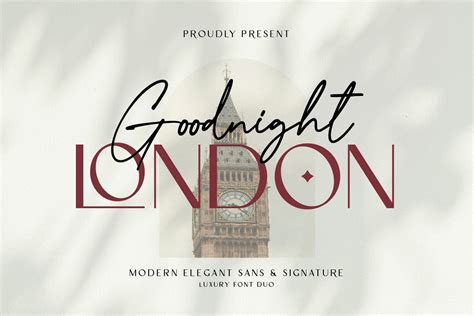
Alright, folks! Let’s dive into something cool: finding and getting your hands on the “Goodnight London” script , plus some awesome free fonts . Whether you’re a budding filmmaker, a graphic designer looking for that perfect touch, or just a curious creative type, this is your treasure map. We’ll navigate the ins and outs of where to find the script, what to expect, and how to snag those amazing fonts without spending a dime. So, grab your virtual pen and paper – it’s time to get inspired! This guide will provide information regarding the free download of the “Goodnight London” script and related fonts, focusing on accessibility, legality, and creative possibilities. We’ll also explore the script’s potential and how it can be used for inspiration or actual projects. The journey begins now! Get ready to download and unleash your creativity! The script is an essential element for any film or play, providing the dialogue and stage directions necessary for production. Finding the right script can be a challenge, particularly if you are on a budget or looking for a specific type of content. Free downloads offer a great solution for accessing scripts like “Goodnight London”, which has a unique charm. The availability of free fonts complements the script, enhancing its visual and creative appeal for various design purposes.
First things first: the Goodnight London script . This isn’t just any script; it’s a doorway to a story, a world, and a creative project waiting to happen. The allure of a script like this often lies in its unique narrative and the potential for a compelling visual representation. The hunt for this script can be exciting! But where do you actually find it? Here’s the lowdown. Think about searching on script-sharing websites . A lot of sites are dedicated to scripts, where writers share their work. These sites can be goldmines for discovering scripts like “Goodnight London.” Always check for legal usage. While many scripts are available for free, always make sure you have the right to use them. Read the terms of service and ensure that it’s allowed for the kind of project you’re planning. Consider the creative use and how you want to use the script. Will you use it as inspiration, for an amateur project, or do you have bigger plans? This will influence the legal considerations. Understand the difference between the script and other adaptations. Some scripts are original, and some may be adaptations of existing works. Knowing the origin can help you understand the rights associated with the script. Finally, keep an eye out for fan-made projects and community creations. Sometimes, passionate fans create their own versions of the script, so look for these too. The accessibility of the “Goodnight London” script provides creative freedom. The possibility of the script to be free makes it easier for aspiring filmmakers, students, and enthusiasts to work on their projects without financial barriers. It is also good for practicing, analyzing, and improving your skills in scriptwriting, acting, and filmmaking. The script can serve as a valuable resource for workshops, short films, or personal projects. This is where the creative process begins.
Unveiling the “Goodnight London” Script: A Deep Dive
Now that you know how to hunt down the script, let’s talk about what makes the “Goodnight London” script so special and why it’s worth the hunt. The script can be a captivating story, blending the charm of London with a unique narrative. Its appeal often lies in its character-driven storytelling, vivid descriptions of London locales, and themes that resonate with audiences. The script could be a drama, comedy, or something in between. Understanding the genre and tone of the script is important. Does it evoke laughter, tears, or a sense of mystery? The genre impacts the visual and artistic choices in your project. Consider the characters and their roles in the narrative. Are they relatable, complex, or memorable? The characters are the heart of the story, and understanding their motivations and relationships is important for any adaptation. Analyze the setting and environment of the story. How does London enhance the narrative? The setting contributes significantly to the mood and atmosphere of the script. Identify the themes and underlying messages of the script. Is it about love, loss, adventure, or something else? Understanding the themes can guide your interpretation and creative choices. Assess the dialogue and writing style . Is it witty, poetic, or realistic? The writing style influences the creative possibilities. Consider the script’s structure and pacing . Is it fast-paced, slow-burning, or something in between? This influences how you visualize and adapt the script. Finally, think about the script’s potential . Does it lend itself well to adaptation? Can it be adapted into a film, play, or visual project? The script opens up many creative avenues. Understanding the intricacies of the script is essential. If the script is well-written, it can offer a rich and engaging experience for both the audience and the creators. This deep dive will offer you insights and encourage you to explore your creative project.
Finding the Right “Goodnight London” Script
So, you’re ready to download the “Goodnight London” script and start bringing your creative vision to life? Before you rush, let’s look at some important aspects when you are finding the right script. Authenticity is crucial. Make sure the script you download is the original. This is important to respect the author’s work and to avoid any legal issues. Check the source for any indications about the script’s origins. If you have any doubts, look for other sources to verify the information. Research the script’s author. If the author is known, you can verify the script’s authenticity and get a deeper understanding of the script. This can also help you understand the script’s themes and goals. Check the script’s copyright information. Be aware of any copyright restrictions. Some scripts are in the public domain, while others are protected by copyright. Understand the legal implications of each case. Look for a clean and well-formatted script. The script’s presentation is essential for a good reading experience. Ensure that it’s easy to read and follow, with clear formatting and a good writing style. Consider the script’s accessibility. Choose a script format that is easy to download and compatible with your devices. This will make it easier for you to work on your project. Always prioritize credible sources and reputable platforms when downloading the script. Trustworthy sites will protect you from potential security risks and illegal downloads. Consider reading the script first. Before starting to work on your project, read the script to understand its themes, plot, characters, and writing style. This will help you get a sense of whether it’s the right choice for your project. Make sure the download source is safe. Always scan the downloaded file for any malware or viruses. The safety and authenticity of the script can save you from legal issues and protect your computer from damage. With those steps, you are one step closer to your creative journey.
Free Fonts: The Perfect Match for Your Script
Now, let’s talk about the visual side of your project. If you’re adapting or creating content based on the “Goodnight London” script , you’ll need some fonts. And hey, guess what? There are tons of free fonts out there, just waiting to be discovered! These fonts can enhance the aesthetic look and feel of your creative work. Whether you’re making a movie poster, a title sequence, or just some notes on your script, the right font can make a huge difference. There’s a font for every style: elegant serifs, bold sans-serifs, and quirky scripts. The options are endless! Let’s get into how you can find and use them. First, explore font websites. Sites like Google Fonts, DaFont, and Font Squirrel are filled with amazing options. They’re like digital font libraries. Second, find the perfect font for your project. Your font selection should reflect the mood of the script. For example, use elegant fonts for romantic themes and bold fonts for action scenes. Consider the fonts’ readability. Select fonts that are easy to read, especially if you’re using them in a long block of text. This improves your content’s accessibility. Check the font license and make sure you can use it for your project. Some fonts are free for personal use only, while others can be used commercially. This protects you from legal issues. Download and install fonts. This is easy; most systems allow you to install fonts with just a few clicks. Make sure to organize your fonts. Creating folders will make it easier to find fonts later. And finally, experiment with your fonts. Try different combinations and styles. This will help you find the best look. The right fonts complement your creative vision. The use of free fonts allows you to be creative without financial constraints.
Font Styles and How They Enhance Your Creative Work
Alright, let’s talk about the fun part: font styles and how they can really bring your “Goodnight London” script to life. Different font styles can convey different moods, tones, and messages, so choosing the right font is super important! If your script has a romantic theme, you might want to use elegant serif fonts. These fonts have a classic feel. They can add a touch of sophistication to your project. If your script is more modern and clean , go for sans-serif fonts. These fonts are straightforward and easy to read. They work great for a clean and contemporary look. The bold fonts can be used for headlines or important text . They stand out and grab the viewer’s attention. Script fonts can add a personal touch . They can mimic handwriting and are perfect for a vintage feel. Consider the legibility of the fonts . Choosing a font that is readable is essential, especially in long texts. The ease of reading ensures the message is easily conveyed. Mixing and matching fonts is an option, but you have to use it wisely. Combine fonts that complement each other. Avoid mixing too many fonts. Use too many font styles and the project may look messy. Always take into consideration the target audience . Consider their preferences and the design’s overall effectiveness. The correct use of fonts can enhance the script’s visual appeal and the overall impact of the work.
Alright, let’s chat about something super important: legal considerations ! Before you dive headfirst into using the “Goodnight London” script and any free fonts you find, it’s crucial to understand the legal side of things. Trust me, it’ll save you a lot of headaches down the road. It all starts with the script . Always find out the copyright status of the script. This ensures you’re not violating any copyright laws. If the script is in the public domain, you’re usually good to go, but if it’s protected by copyright, you’ll need to know the terms of use. Check to ensure the script’s intended use matches your creative plan. Be sure to confirm the script is permitted for the type of project you want to create. Does it allow for adaptation, commercial use, or modifications? Know the limitations. Next, let’s talk about fonts. When you download a free font, you’re not always free to do whatever you want with it. Pay close attention to the font license . The license states how the font can be used. Some fonts are only for personal use, while others can be used commercially. Make sure you’re using the font in a way that aligns with its license. Remember the importance of attribution . Many font licenses require you to credit the font’s creator. Always give credit where credit is due! Understand the difference between the font and the script . Always respect the intellectual property rights of the author and the font designers. Be aware of the consequences of copyright violations. These actions can include legal disputes. Take steps to avoid legal issues by correctly understanding and following all the necessary permissions.
So, let’s get into the nitty-gritty of copyright and licenses , especially when dealing with the “Goodnight London” script and free fonts . Knowing the difference will save you a ton of stress. When you’re using the script, the copyright protects the author’s original work. The author owns the script. You need the author’s permission to use the script. Understanding the license agreement is essential. Some scripts might be in the public domain, meaning the copyright has expired. In this case, you’re usually free to use it without permission. But always double-check! If the script is under copyright, you’ll likely need to get a license. This gives you the right to use the script, but the terms can vary. With fonts, the process is very similar. Font designers also have copyright on their fonts. The license specifies what you can and can’t do with the font. Always read the license carefully! There are different types of licenses. Some fonts are licensed for personal use, which means you can use them for personal projects. For commercial use, you’ll need a commercial license. Some licenses require you to credit the font designer. This is called attribution. Make sure you always credit the creator. The consequences of not following these guidelines can be serious. You could face legal action or fines. Don’t take shortcuts and always respect the creators’ rights. By respecting the legal side of your project, you’re not only protecting yourself but also supporting the creative community.
Okay, let’s talk about how to avoid legal pitfalls when you’re working with the “Goodnight London” script and free fonts . Prevention is always better than cure. This is where you can safeguard your project. Before you even think about using a script, do your research. Find out if the script is in the public domain or if it has any copyright restrictions. Don’t assume anything! Always get permission. If the script is protected by copyright, get permission from the author or rights holder. This step is essential to avoid potential legal issues. Document your permissions. Keep records of your permission, including any licenses, agreements, or communication with the rights holders. This will serve as proof. When using fonts, always read the font license before you download and use a font. Know exactly how the font can be used. Check if the font is available for commercial use. Some fonts are only for personal projects. Always follow the license terms. If a font license requires attribution, always credit the font designer! Be sure to use reliable sources. Download your scripts and fonts from reputable websites. This reduces the risk of downloading illegal or unlicensed materials. Back up your work. Save your projects, scripts, and font files. This will protect your work. Always follow all copyright laws and licenses. This protects you and the creators. It’s about respecting the work of others and doing things the right way. Doing so, you can enjoy your creative work without any legal worries.